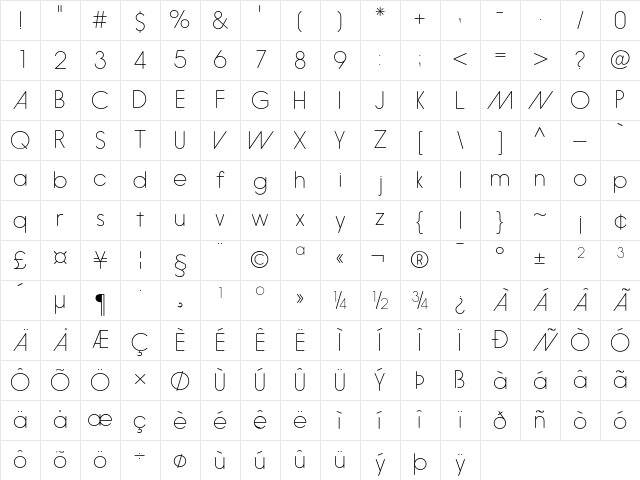
Complete Hiruko Pro Alternate Extra Light glyph index. Displaying only characters natively supported by Hiruko Pro Alternate Extra Light font.
Hiruko Pro Alternate is a composed and adaptable typeface that performs quietly and consistently across a wide range of design contexts. Its slender proportions lend an understated elegance to any composition.